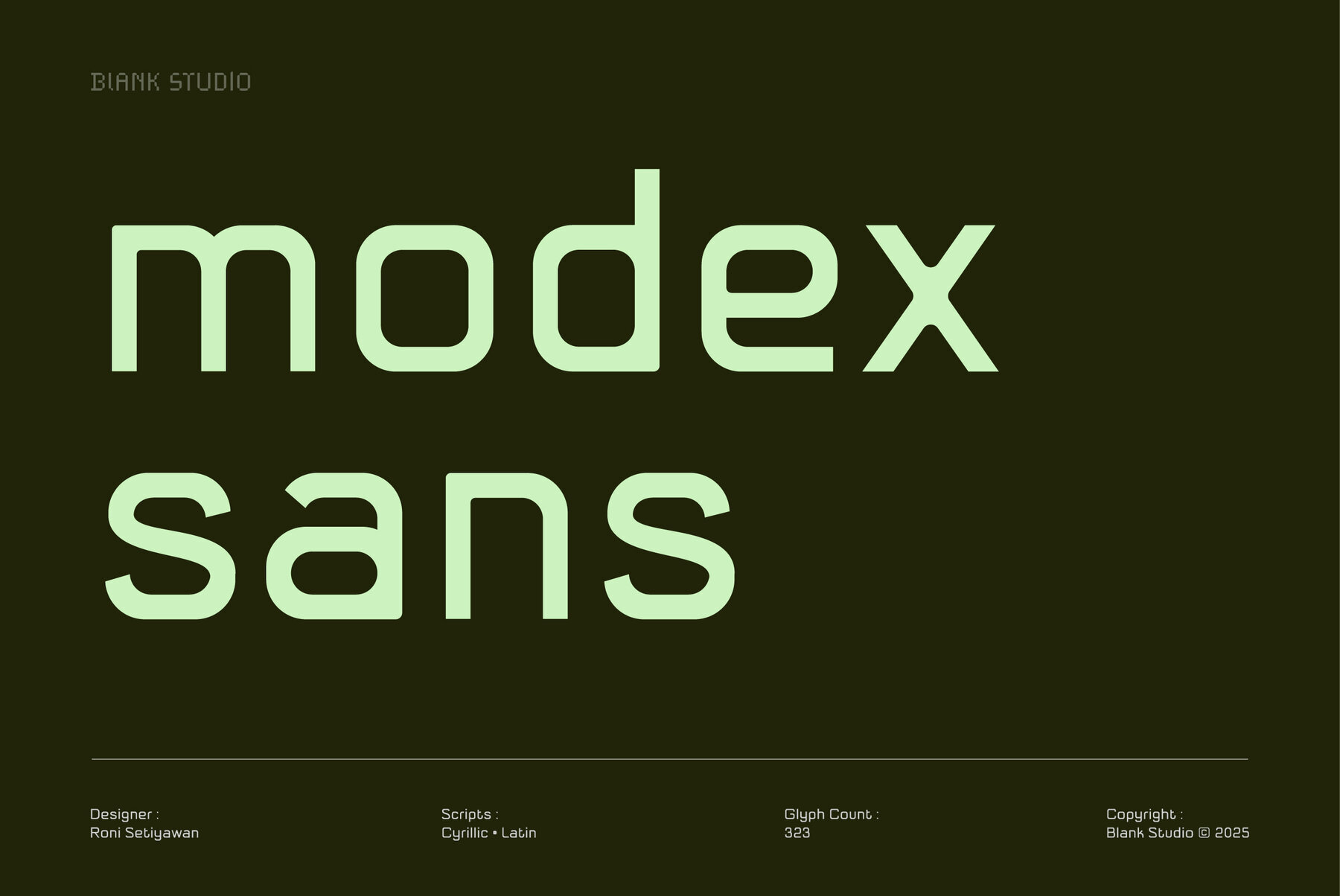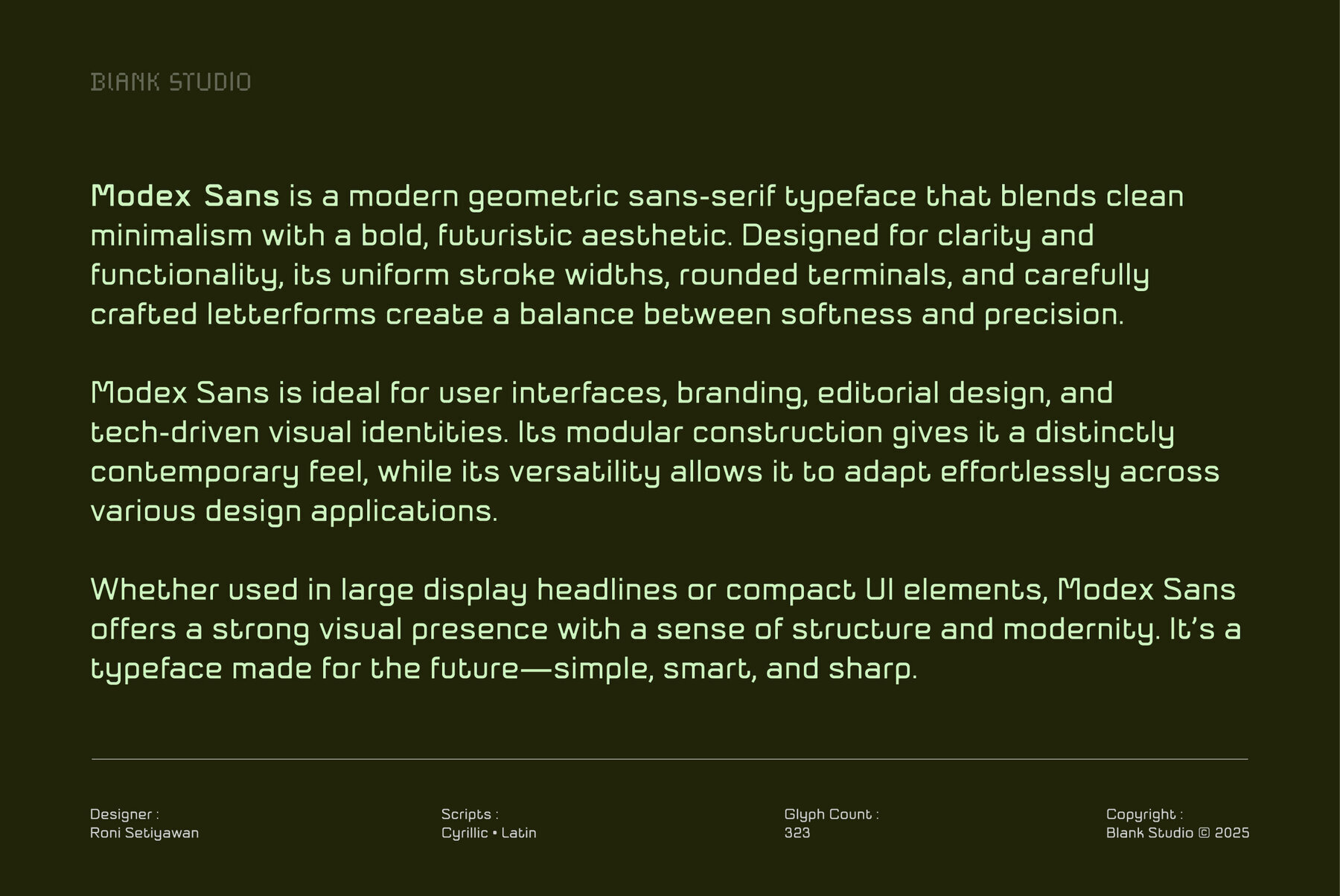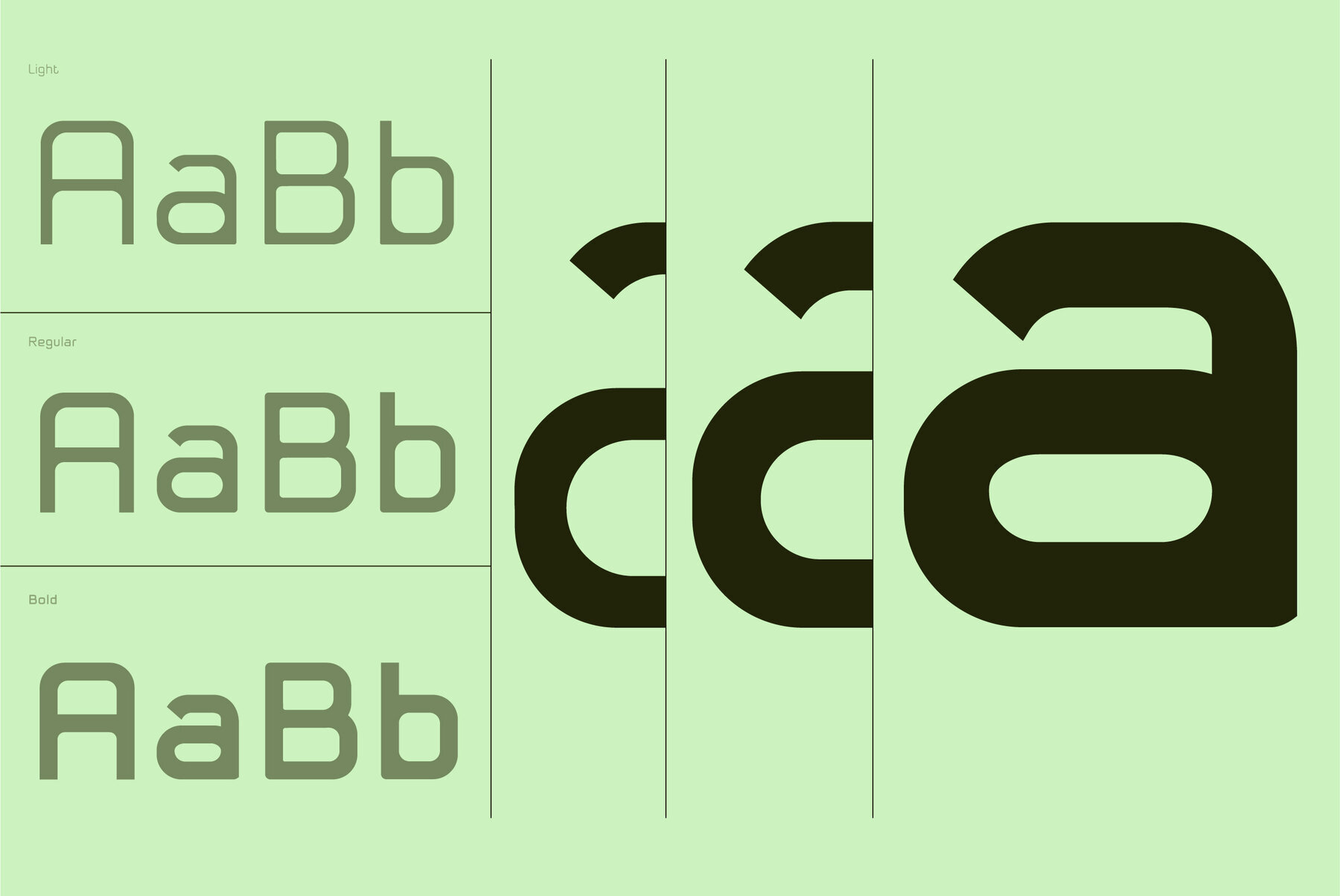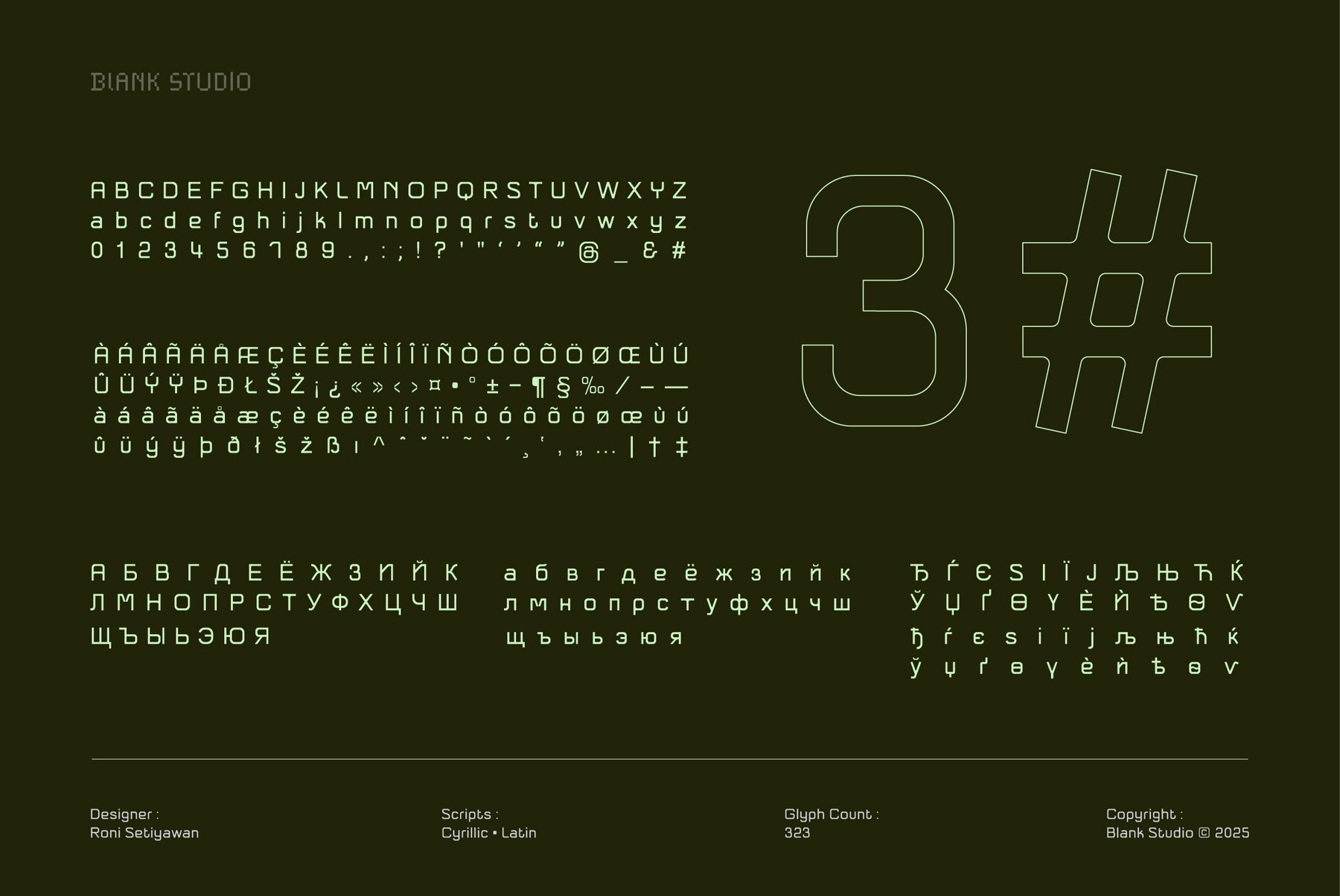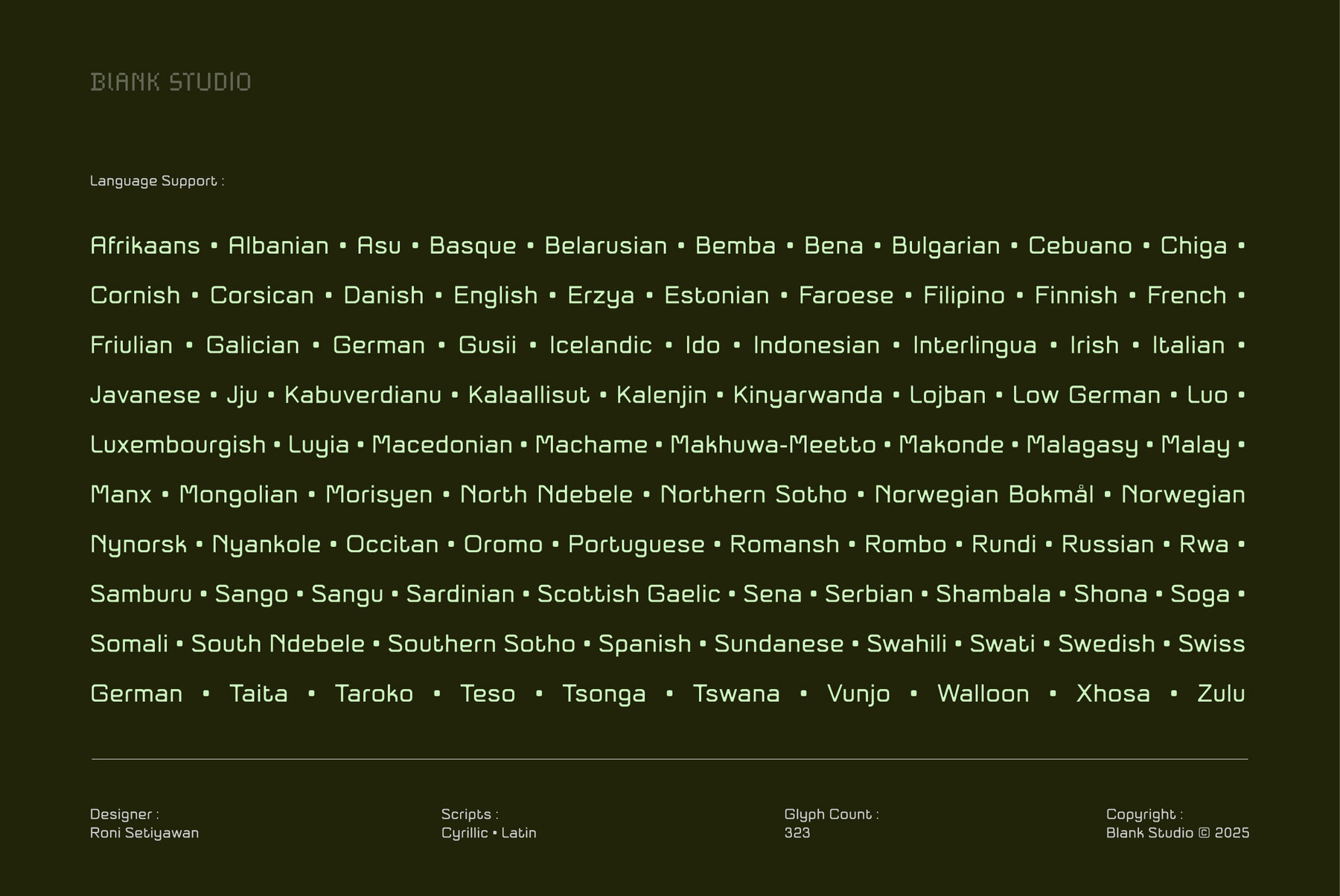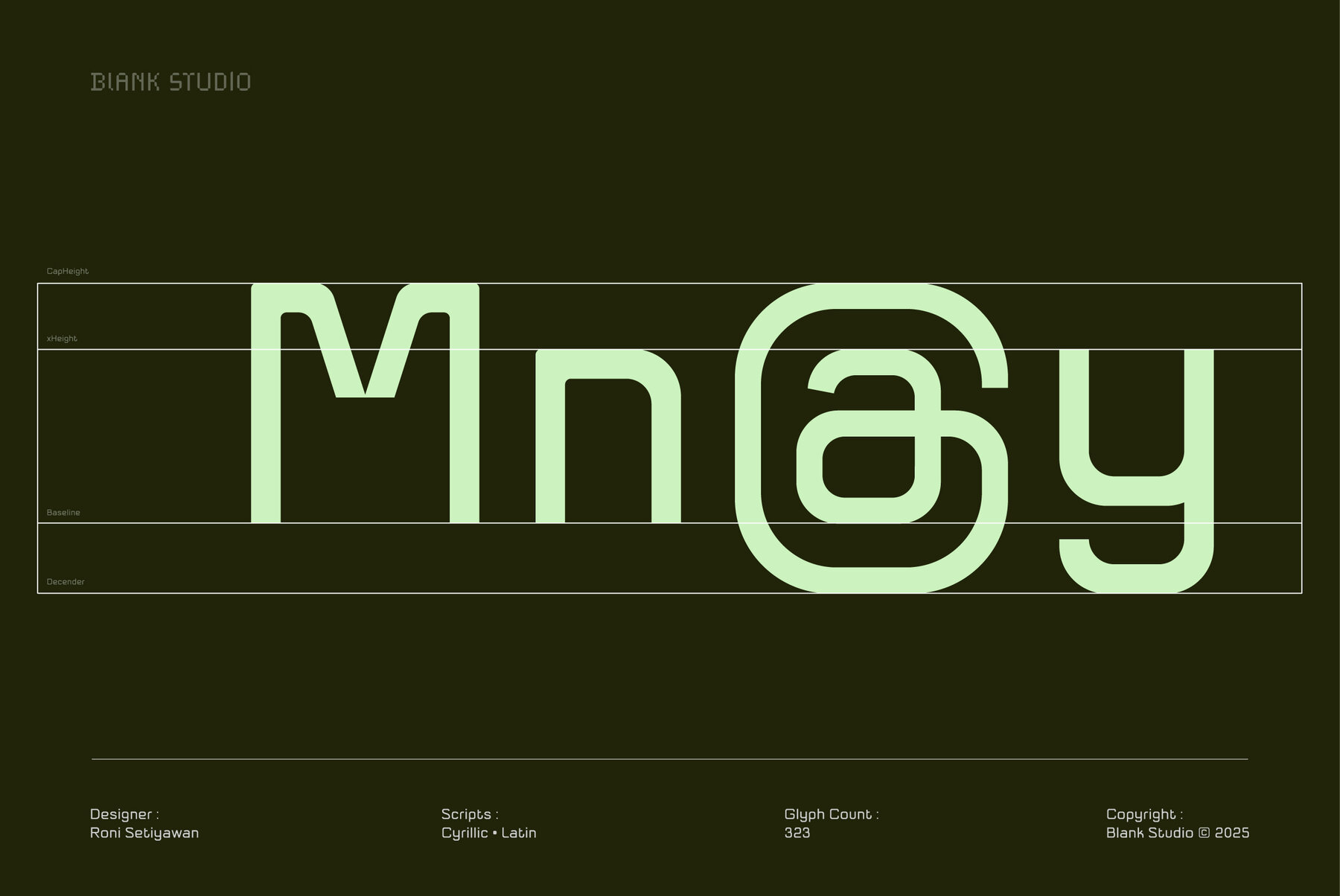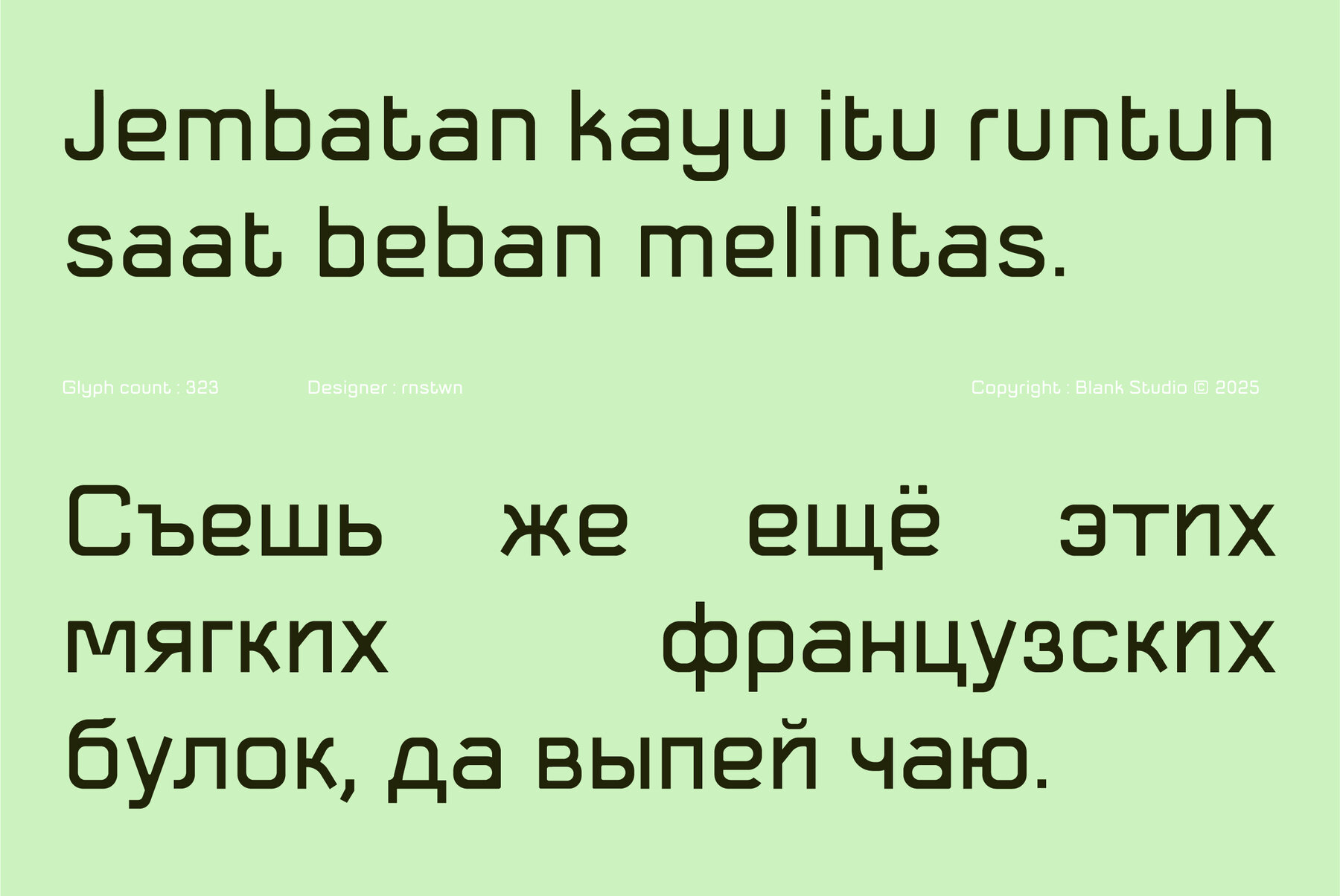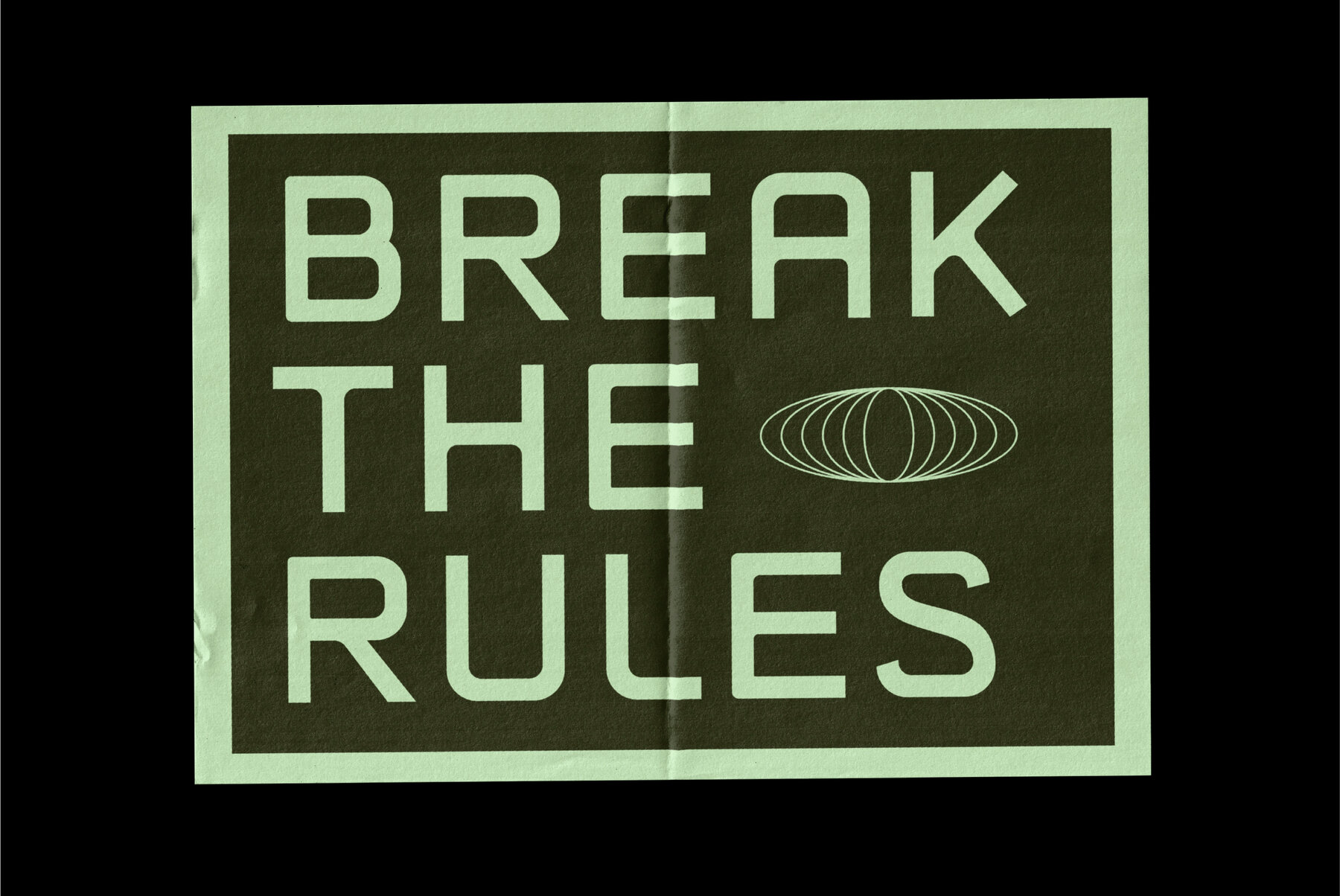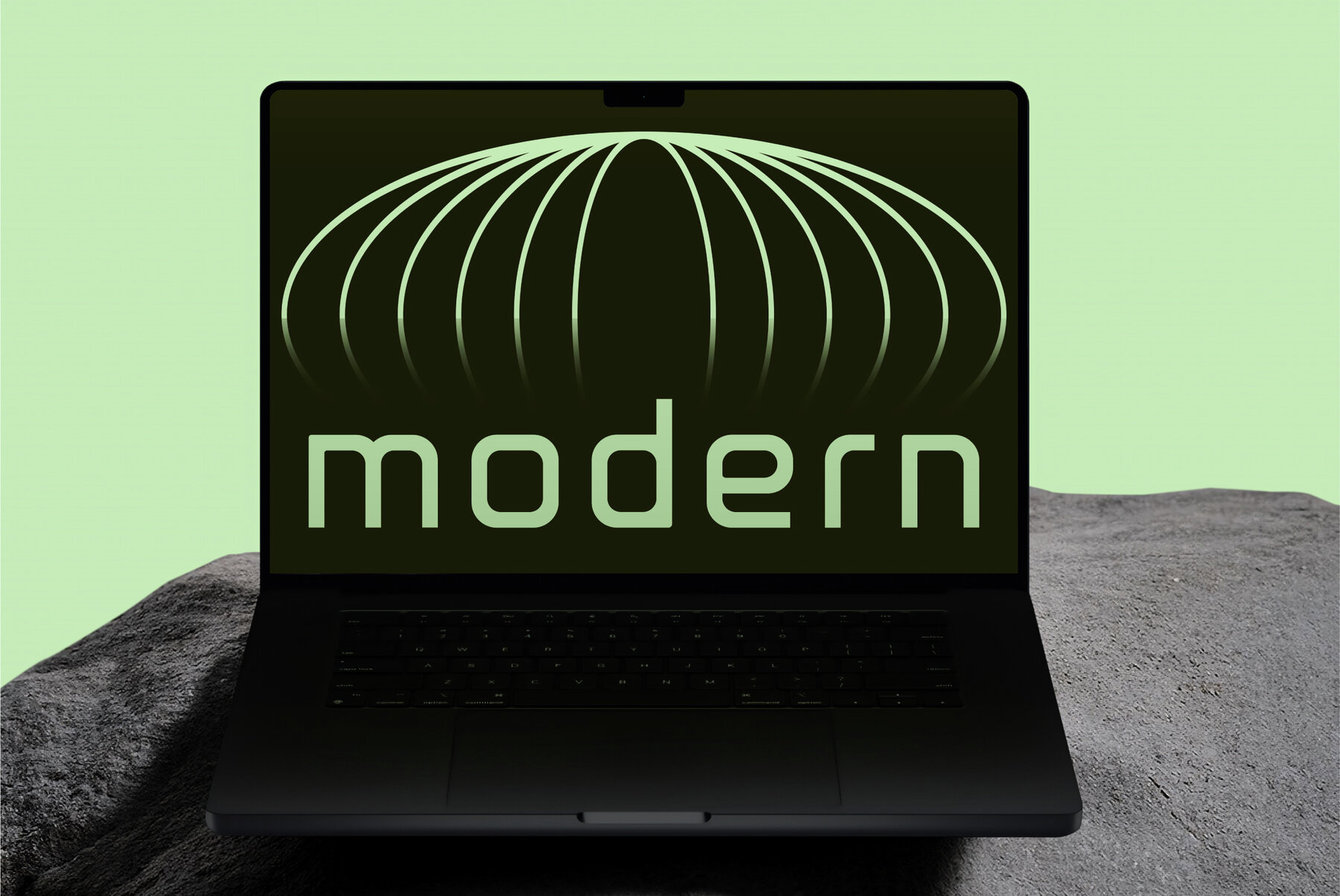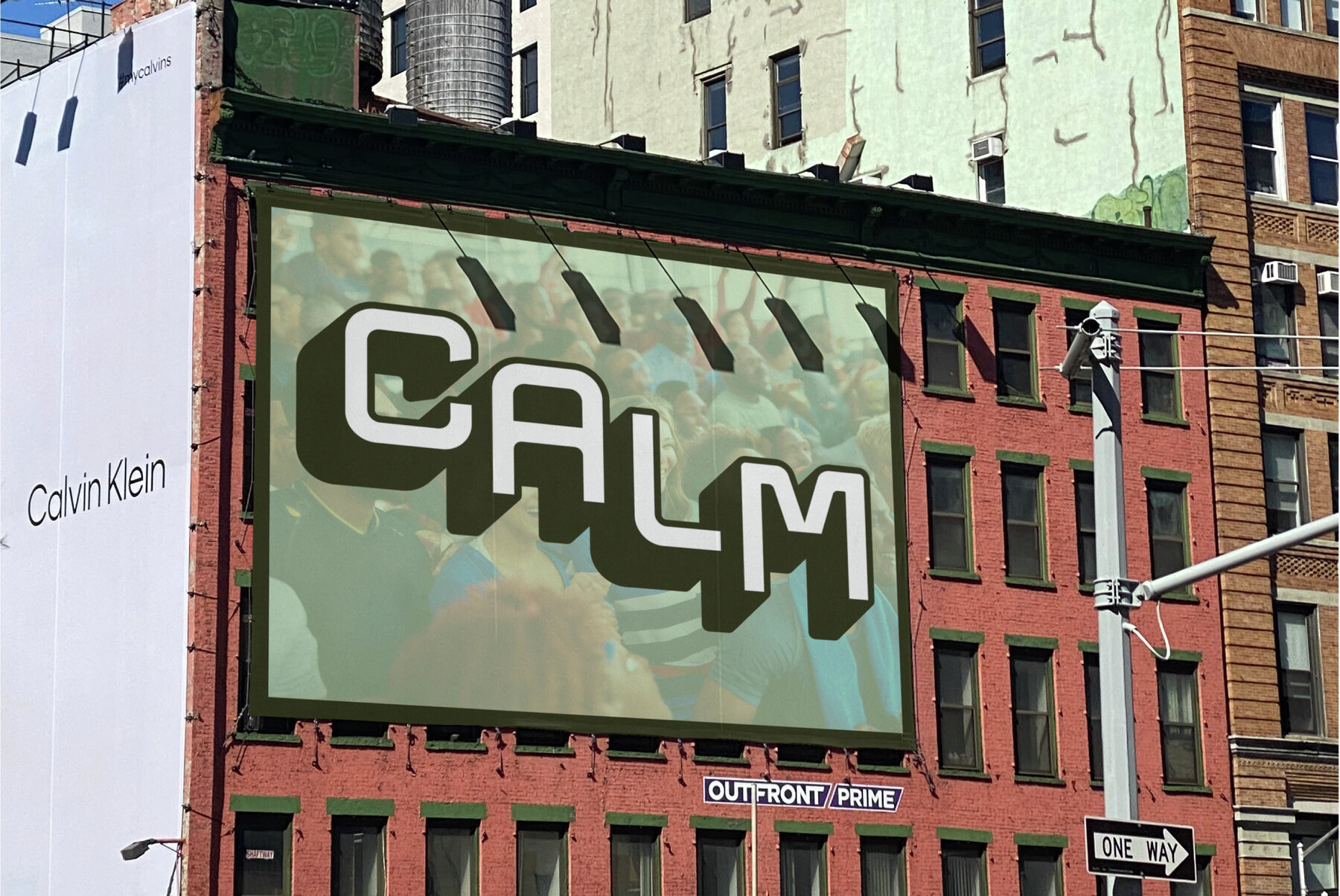
Modex Sans Font
Modex Sans is a geometric sans-serif typeface that marries clean minimalism with a bold, futuristic look. Its uniform stroke widths, rounded terminals, and meticulously crafted letterforms create a harmonious blend of softness and precision. This makes it an excellent choice for designers seeking clarity and functionality. With its modular construction offering a contemporary edge, Modex Sans adapts seamlessly across diverse design applications. Whether in large display headlines or compact UI elements, it ensures a strong visual presence paired with modern structure. A typeface designed for forward-thinking projects—simple, smart, and sharp.Modex Sans: Geometric Elegance Meets Bold Futurism